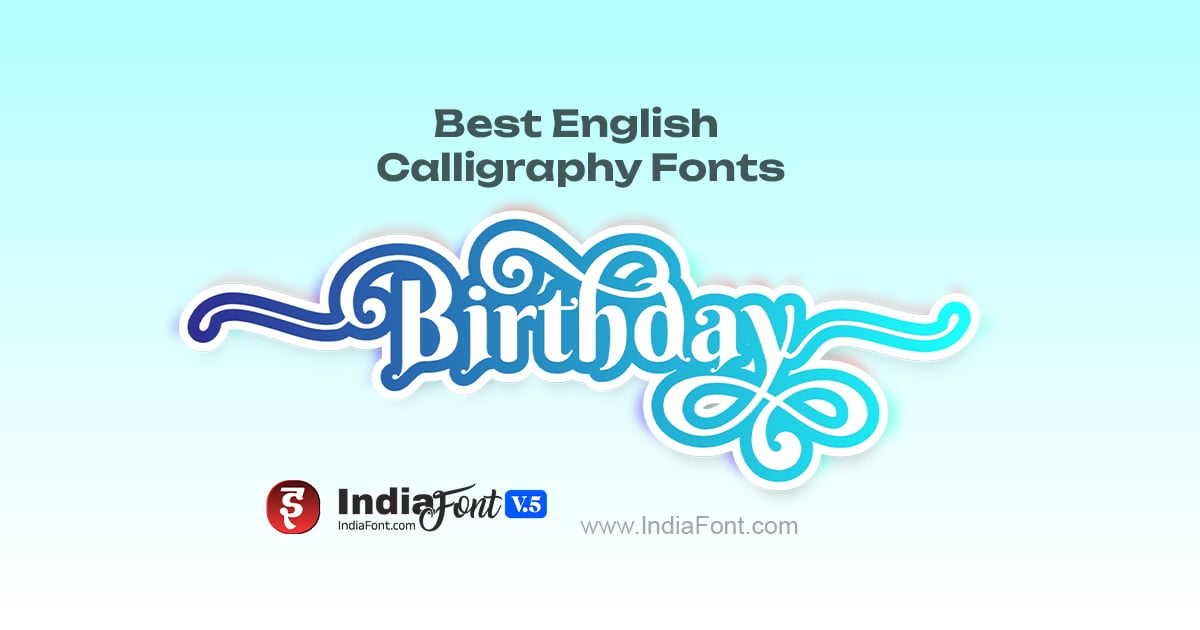
English Calligraphy Fonts
Guide to our 89 English calligraphy and display fonts
English Calligraphy Fonts
IndiaFont includes 89 professionally designed English fonts for calligraphy and display purposes.
Collection Overview
Our English font collection includes:
• •Calligraphy scripts
• •Display fonts
• •Decorative styles
• •Modern designs
Font Styles Available
Script & Calligraphy
Elegant flowing fonts:
• •Wedding invitation styles
• •Formal scripts
• •Handwritten looks
Display Fonts
Bold statement fonts:
• •Headlines and titles
• •Poster designs
• •Logo creation
Decorative
Creative and artistic:
• •Festival designs
• •Social media graphics
• •Unique branding
Using English Fonts
Bilingual Designs
Perfect for combining with Hindi/Marathi:
• •Wedding cards with English and Hindi text
• •Business materials in multiple languages
• •Social media content
Best Practices
1. 1.Match English fonts with complementary Indian fonts
2. 2.Maintain visual hierarchy between languages
3. 3.Ensure consistent weight and style
4. 4.Test readability at various sizes
Letter Variables
Like our Devanagari fonts, many English fonts include:
• •Multiple letter variations
• •Decorative alternates
• •Stylistic options
Popular English Fonts
Some favorites from our collection:
• •AMS English Script - Elegant wedding style
• •AMS Modern Calligraphy - Contemporary look
• •AMS Display Bold - Impactful headlines
• •AMS Handwritten - Natural feel
Tips for Best Results
1. 1.Pair thoughtfully - Match English and Indian font styles
2. 2.Hierarchy - Use display fonts for headlines, readable fonts for body
3. 3.Consistency - Stick to 2-3 fonts per design
4. 4.Test sizes - Ensure readability at intended use size